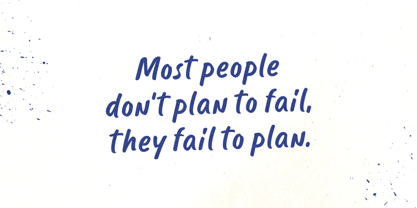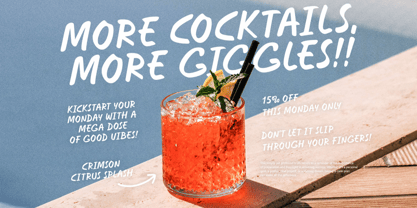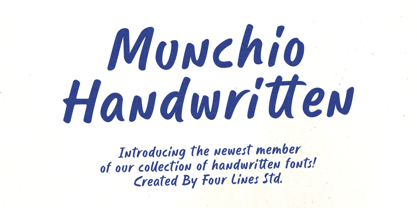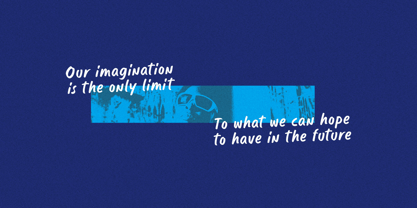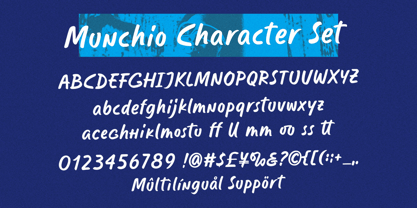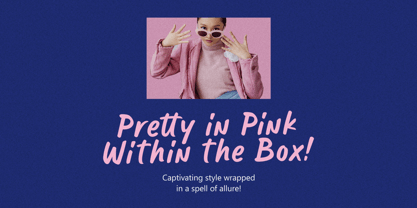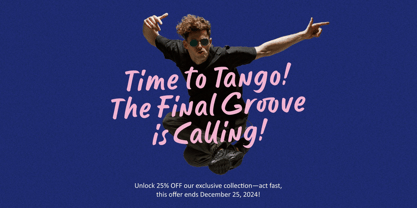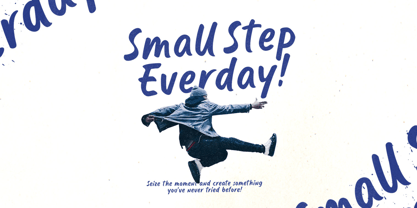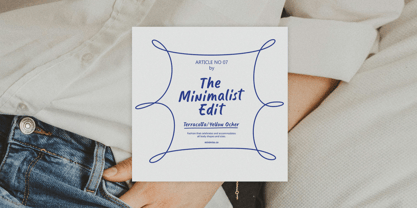
Munchio
The Munchio Font Family was designed by Zain Fahroni and published by Four Lines Std. Munchio contains 1 styles. More about this family
Introducing a handwritten font that blends casual with a bold, edgy flair. Inspired by the dynamic strokes of a marker, this font is designed to make your designs stand out. Whether you're working on branding, posters, or digital media, this font brings an authentic, playful touch that grabs attention and leaves a lasting impression.